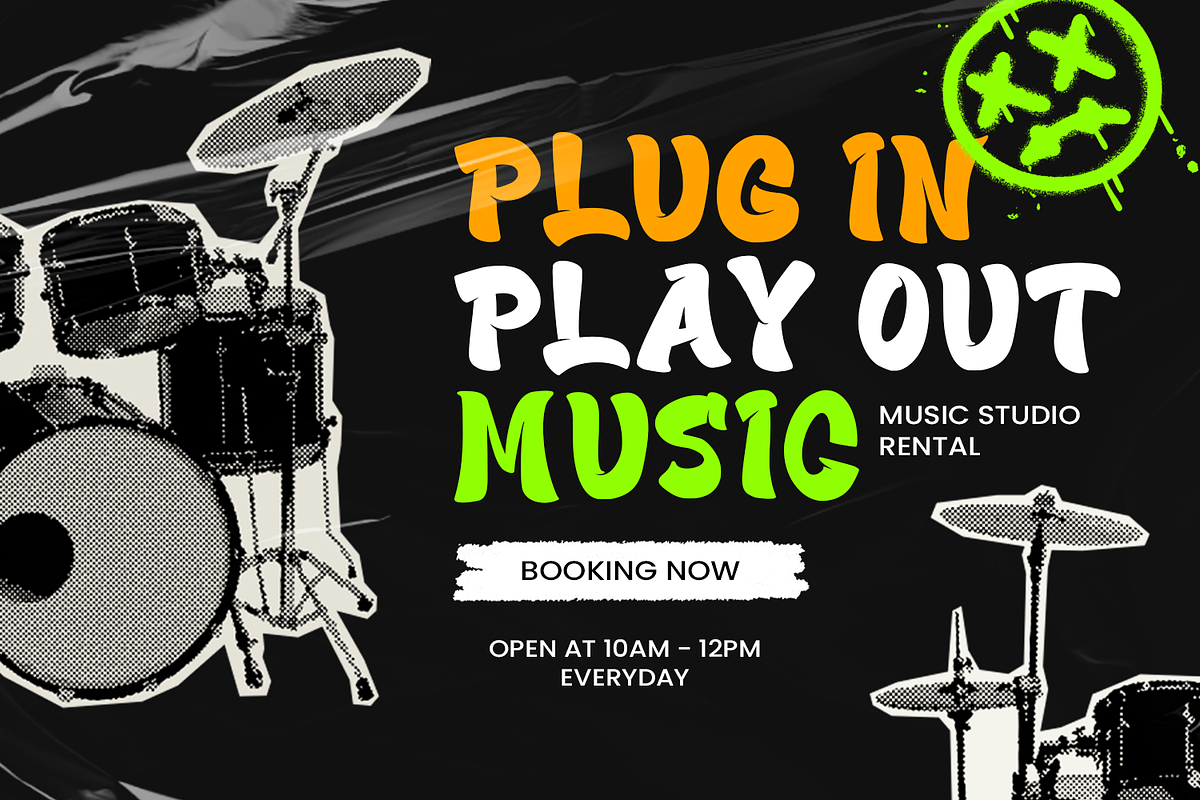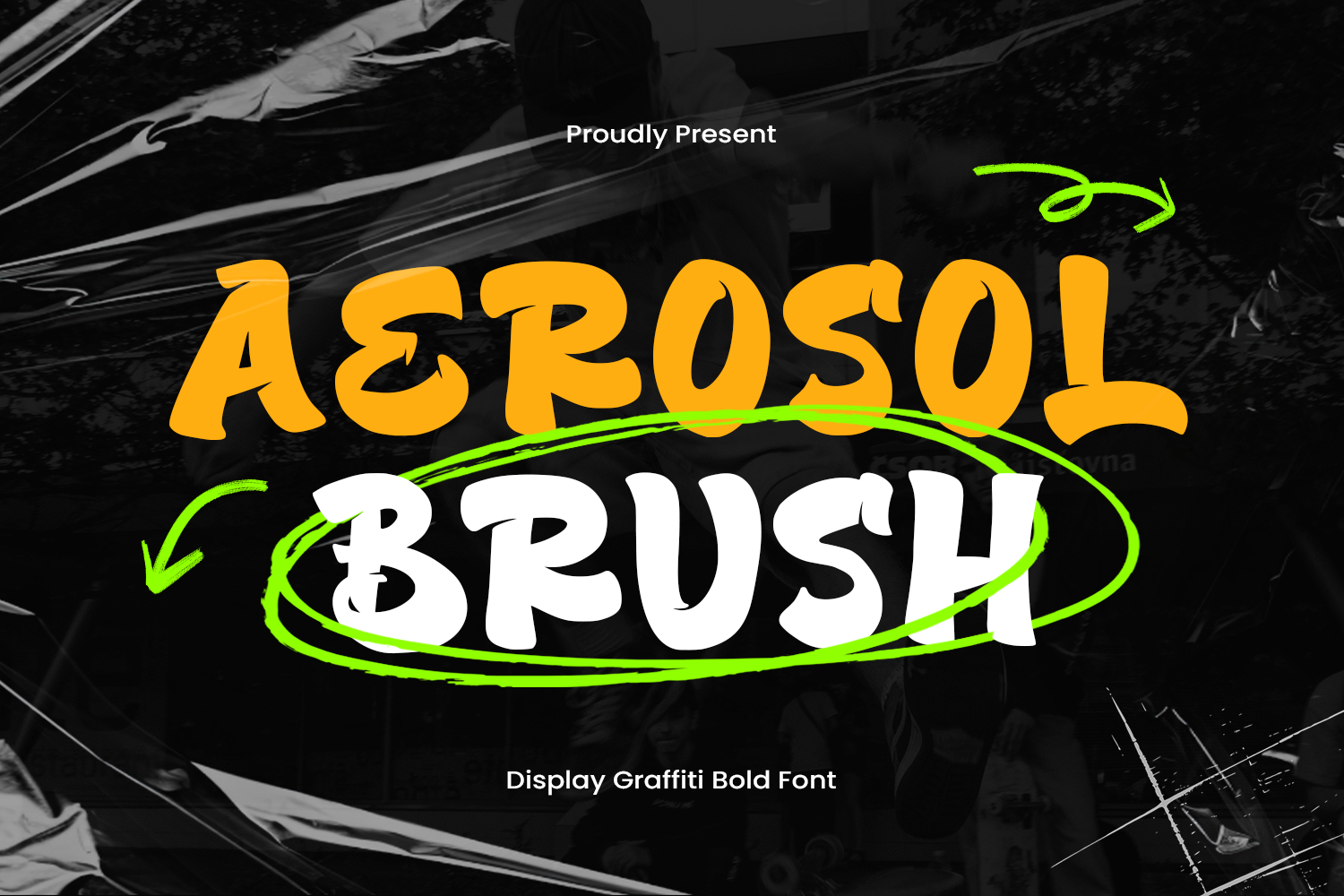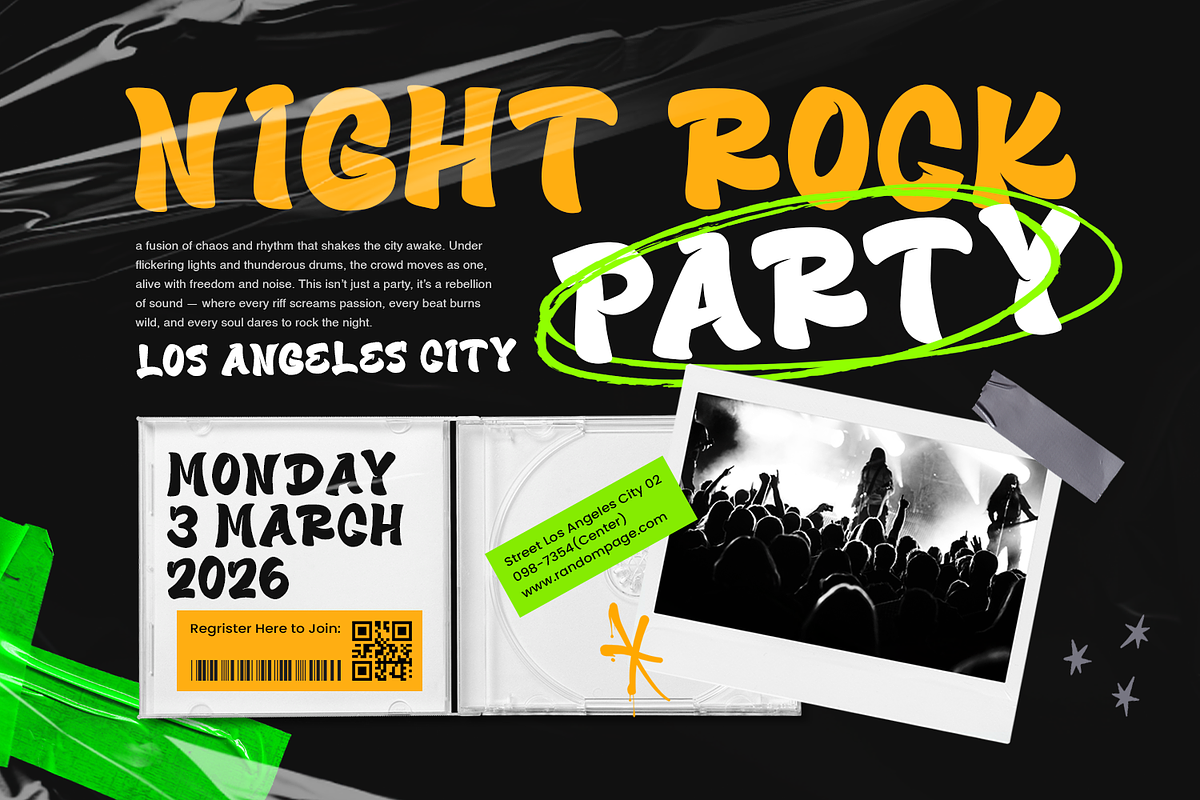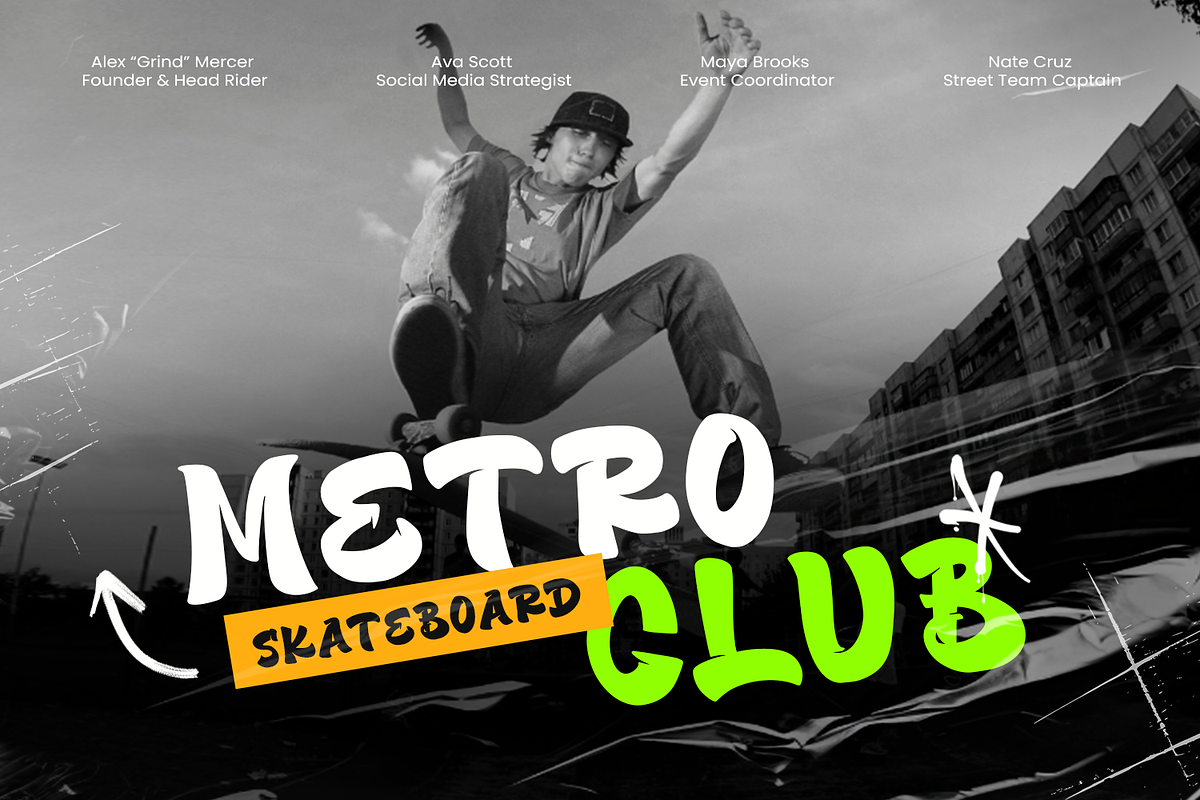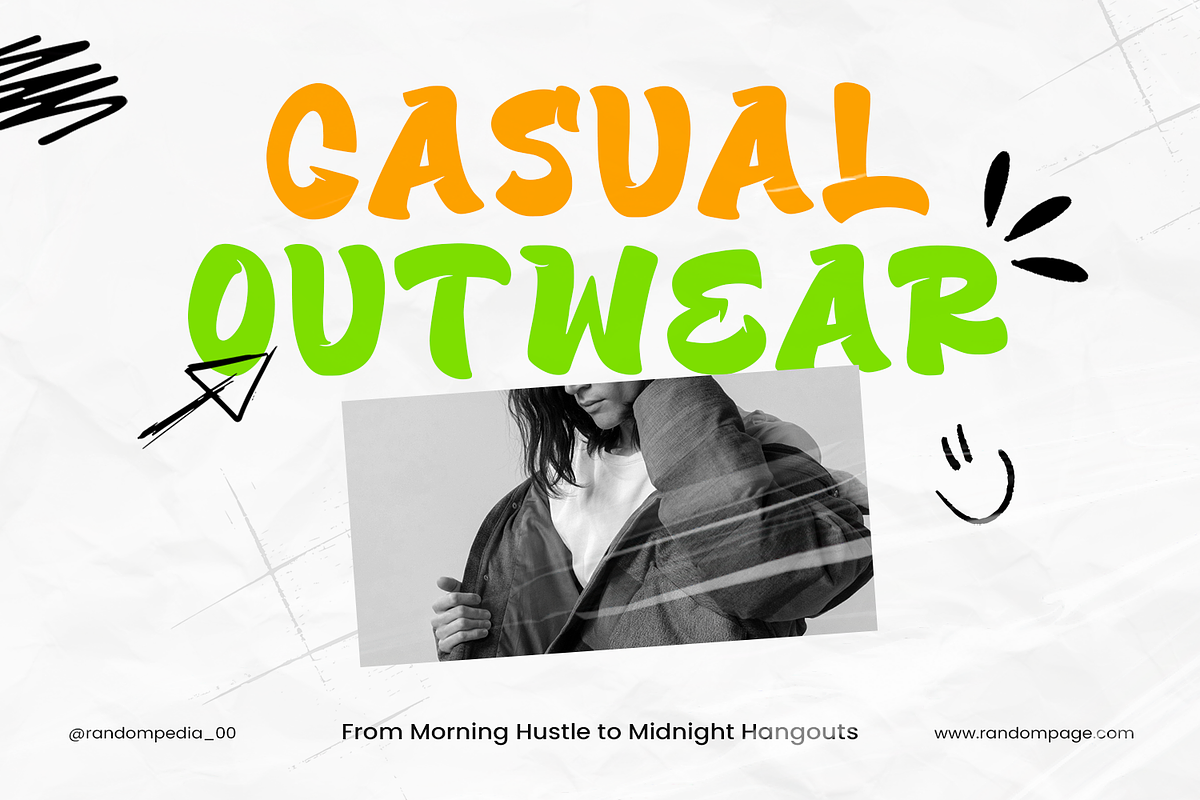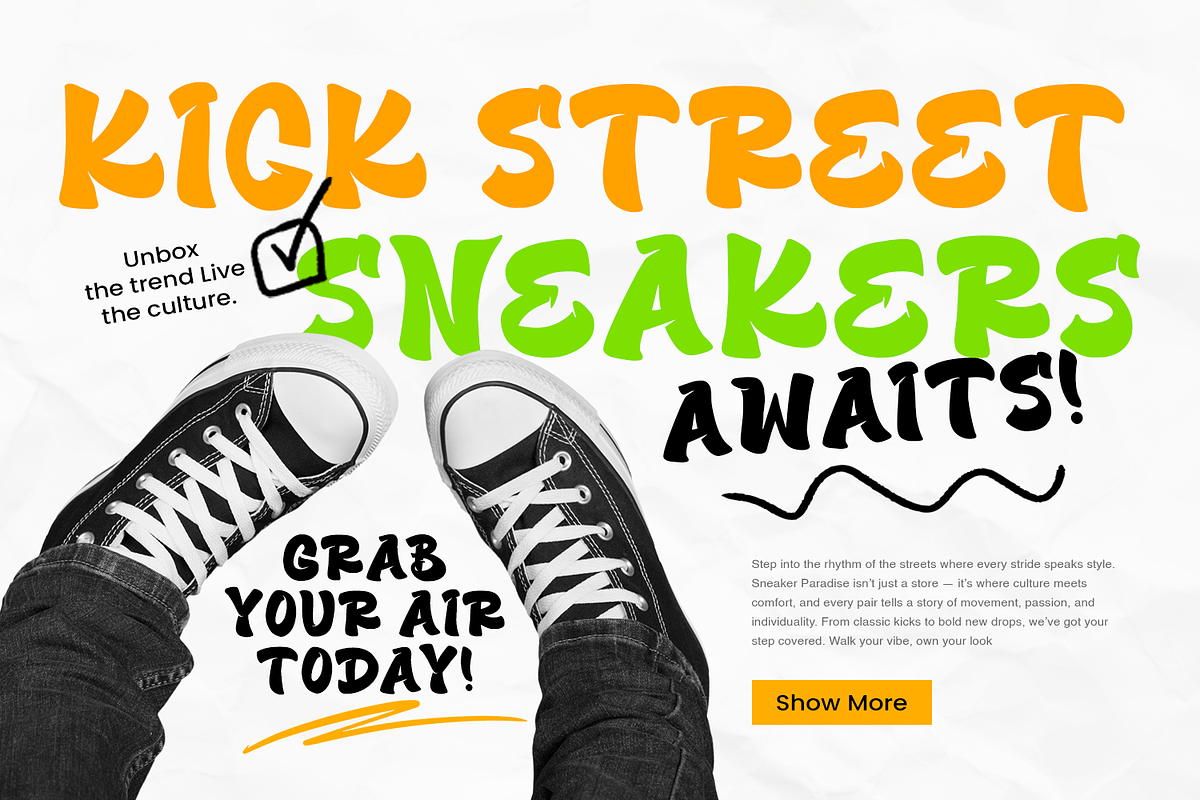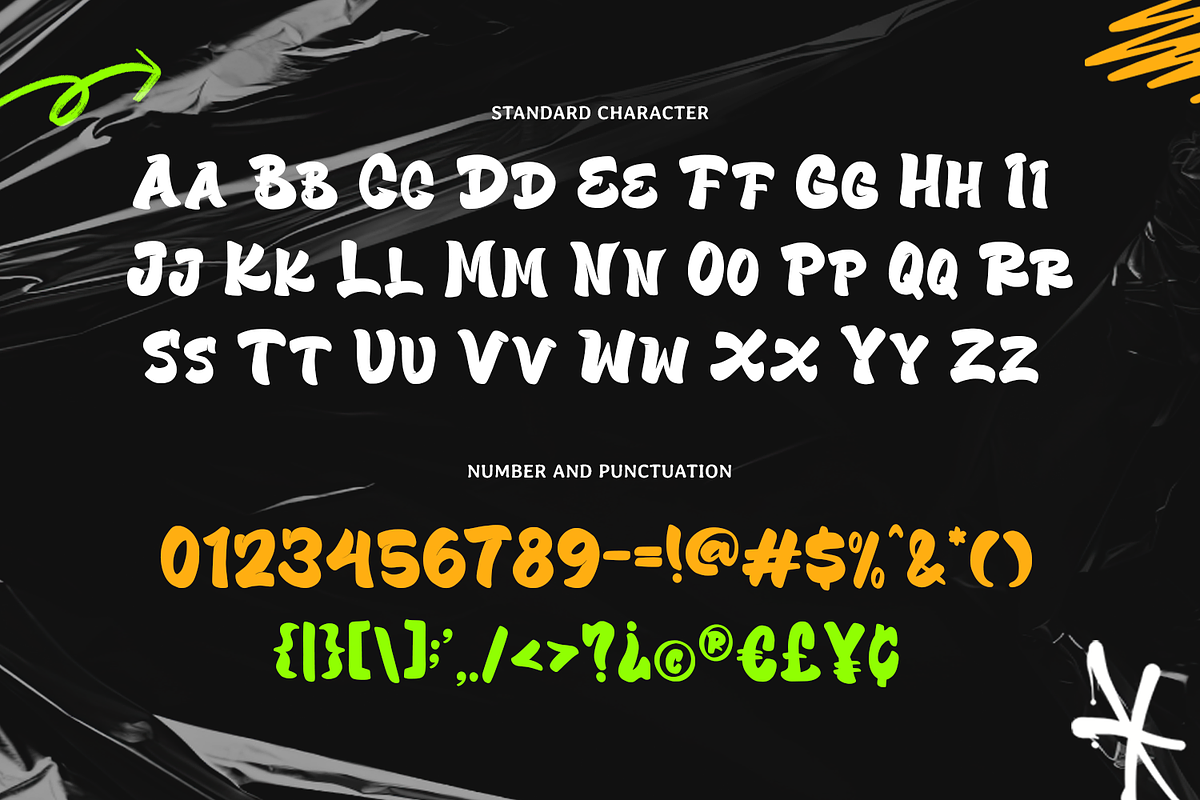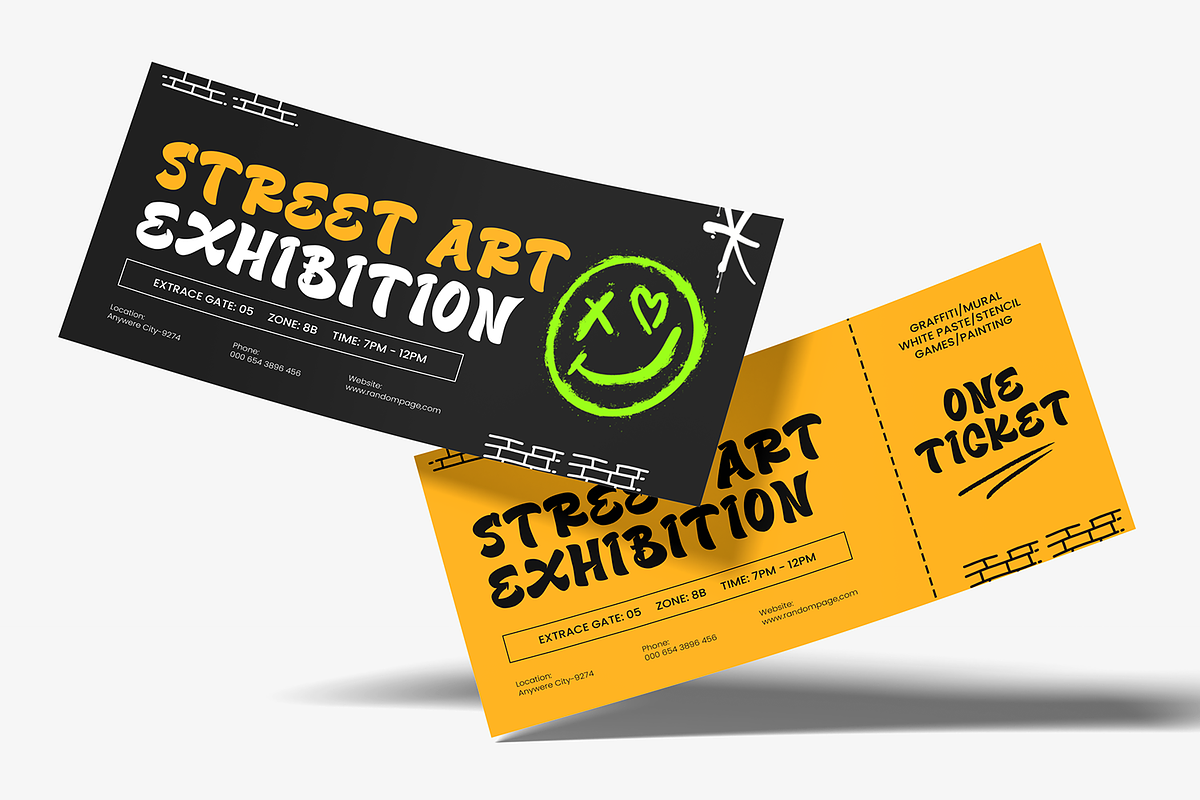
AEROSOL BRUSH - Graffiti Font
Aerosol Brush – Graffiti Font is a bold and energetic brush-style font designed to capture the raw spirit of street art. With expressive strokes and a hand-painted texture, it brings an authentic graffiti vibe that bursts with personality and attitude.
This font comes with an additional outline version, allowing you to layer and adjust colors for a dynamic, eye-catching effect. Whether you’re designing for awesome branding, Aerosol Brush delivers a strong visual punch that stands out.
Perfect for logos, quotes, posters, product packaging, or any design that needs a typographic turbo-boost, Aerosol Brush adds a sense of motion and creativity. Its free-flowing brush style embodies confidence, rebellion, and artistic freedom.
Bring the energy of the streets into your designs with Aerosol Brush – Graffiti Font. A perfect blend of boldness, texture, and urban flair that makes every project look powerful and alive.